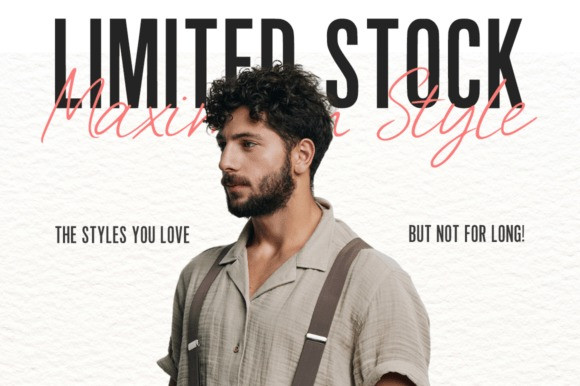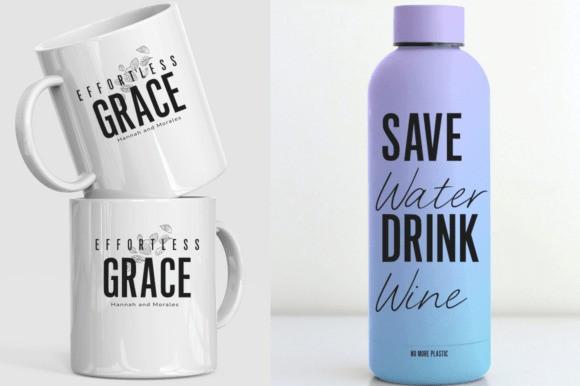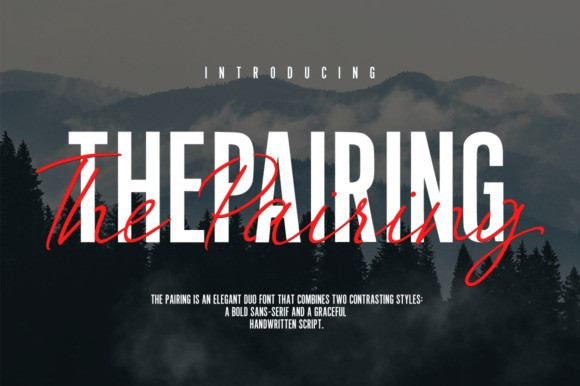
The Pairing Font Duo
The Pairing Font Duo a stylish coupling of two diverse font styles, designed to make your artistic visions come to life. This dynamic duo combines a robust, geometric sans-serif with a gracefully fluid script, creating a visually appealing contrast. Perfectly suited for a broad spectrum of design uses, The Pairing breathes creativity into brand identities, transforms editorial layouts, adds charm to wedding invitations, gives an edge to social media content, and injects life into typographic quotes.
The sans-serif half of The Pairing makes a bold statement with its crisp, impactful uppercase representation. On the other side, the script font tells its story with a beautifully handwritten, emotive personality. Each style salsa dances with the other, forming a striking, harmonious interaction. However, their individual functionality offers endless design possibilities, making The Pairing not only an aesthetic treat but also a versatile tool for every designer’s toolkit.